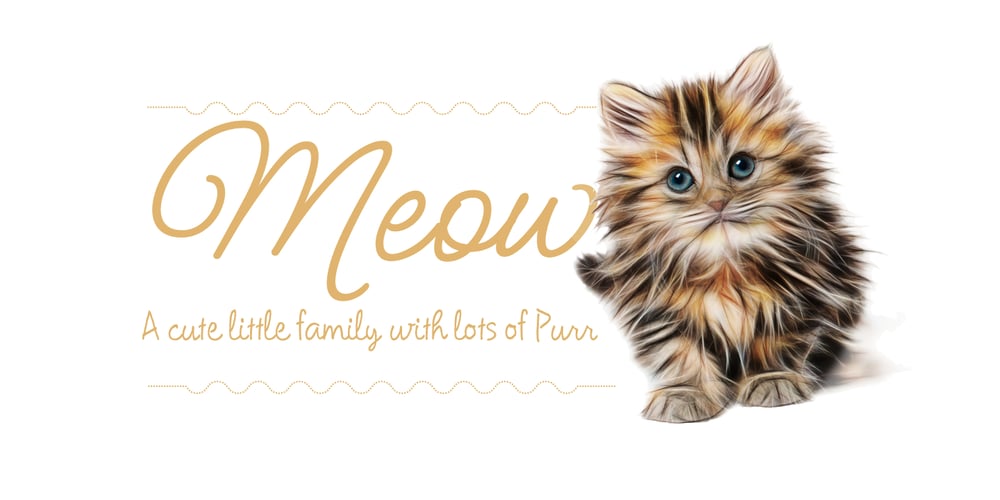
Meow ROB Font Family was designed by Rob Leuschke and published by TypeSETit. Meow ROB contains 5 styles and family package options. Meow ROB is a mono weight family with a variety of styles. Each font in the family could be considered a stand alone font, but combined, the whole family works eclectically and harmoniously to add a fun, whimsy look to your posters, ads, invitations and similar designs.